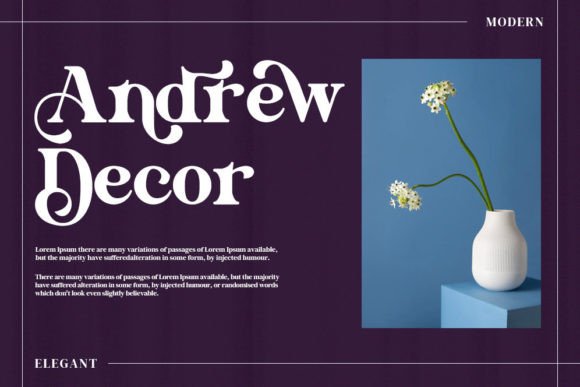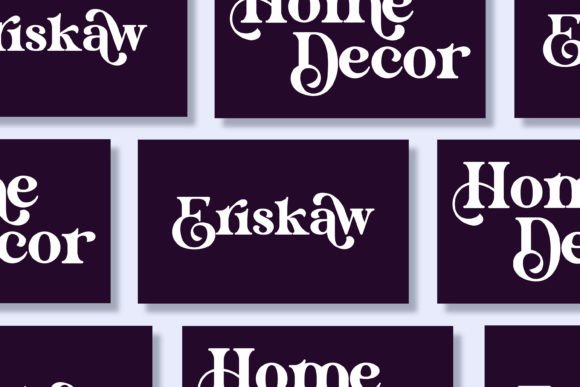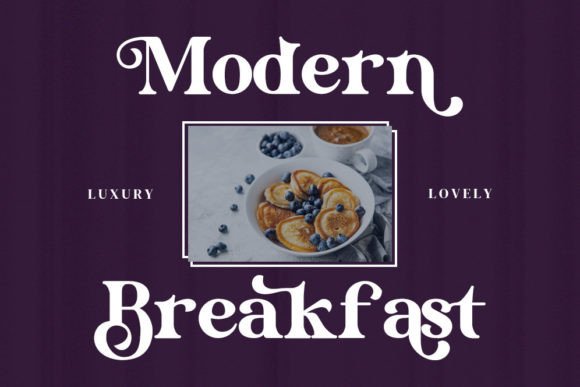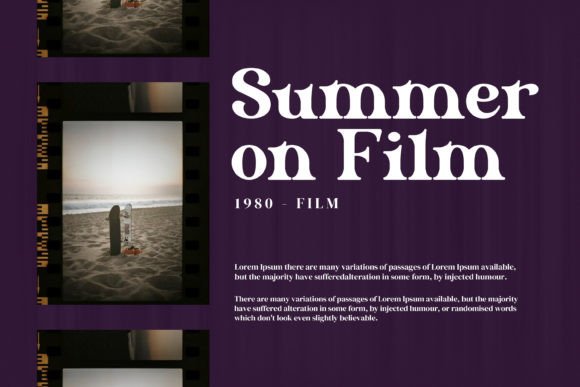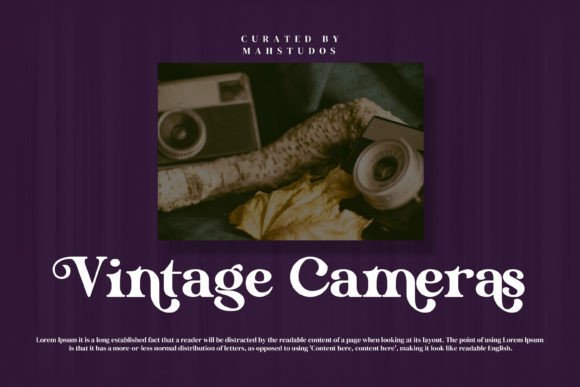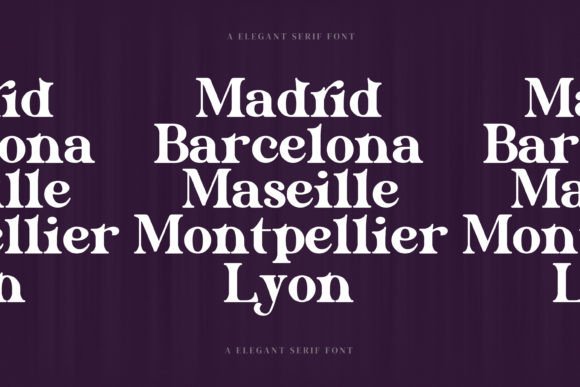
The Eriskaw Font: Elevate Your Designs with Elegance and Sophistication
Have you ever been in the middle of working on a project, and suddenly, you’re stuck on finding the perfect font? I recall a recent experience where I was designing a wedding invitation, and my client requested a font that exuded elegance and sophistication. After scouring through numerous font libraries, I stumbled upon the Eriskaw Font, and it instantly became the perfect fit. In this article, I’ll share my journey with this exquisite display font, its unique features, and how you can make the most of it in your designs.
A Personal Review: What I Love and What to Consider
- ✅ Unique character and refined details that add a touch of elegance to any design
- ✅ Stylish appearance that captures the audience’s attention
- ✅ PUA encoded, allowing effortless access to delightful glyphs and swashes
- ✅ Perfect for making a statement in display designs, such as titles, headings, and logos
- ⚠️ As a display font, it might not be the best choice for body text or lengthy content
- ⚠️ Some users might find the font a bit too ornate for certain design projects
The Eriskaw Font was designed with inspiration from classic calligraphy and elegant typography. Its creator aimed to craft a font that exudes sophistication and refinement, perfect for making a statement in display designs. The result is a beautiful, unique font that adds a touch of elegance to any project.
Q: What is PUA encoding, and how does it benefit font users?
A: PUA (Private Use Area) encoding allows font creators to include additional glyphs and characters that aren’t part of the standard Unicode range. This means that users can access a wider range of characters, such as swashes and glyphs, to add more flair to their designs.
Q: Is Eriskaw Font suitable for body text or lengthy content?
A: While Eriskaw Font is an exquisite display font, it might not be the best choice for body text or lengthy content. Its ornate details and elegant appearance are better suited for titles, headings, and short text elements.